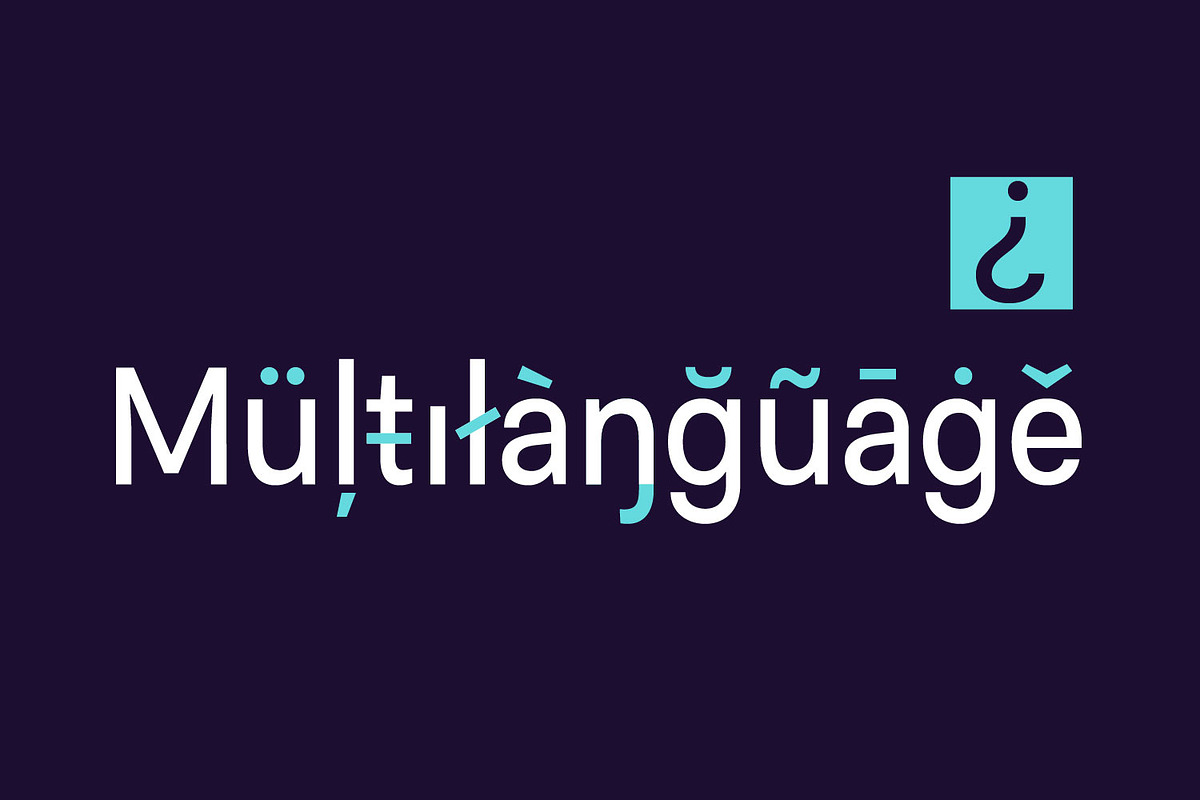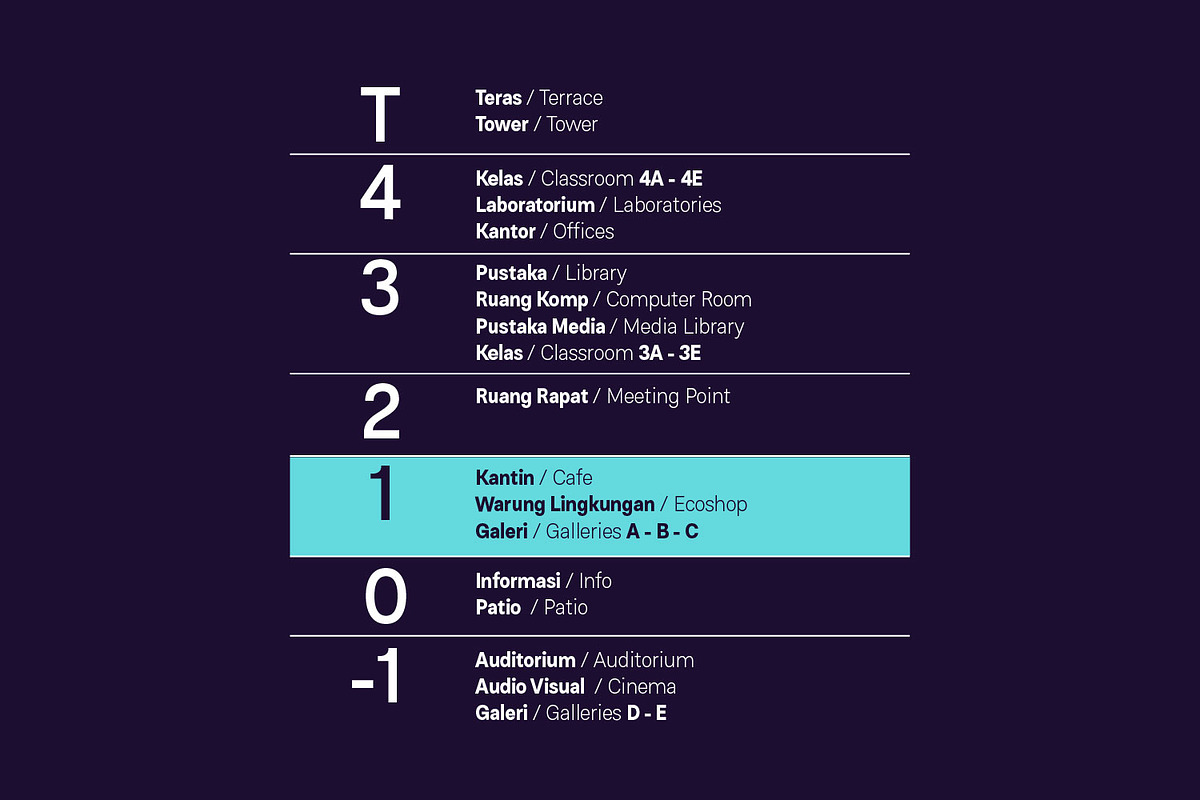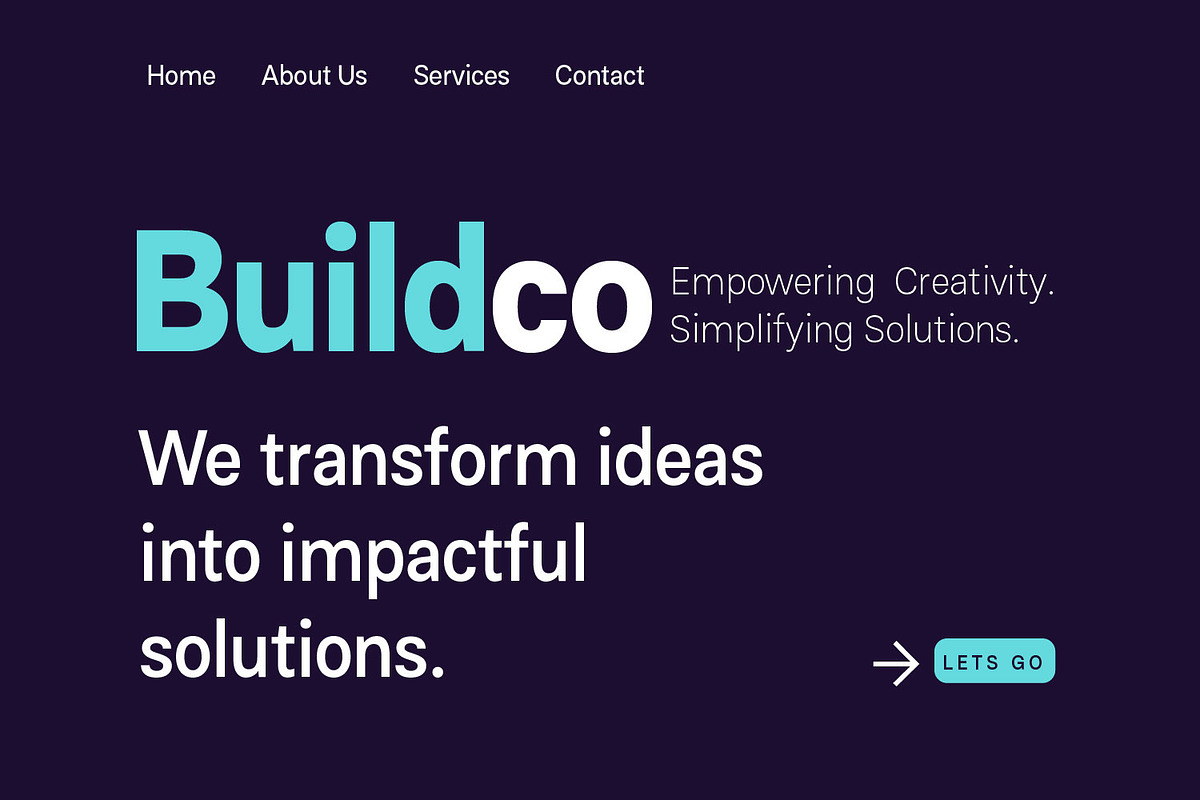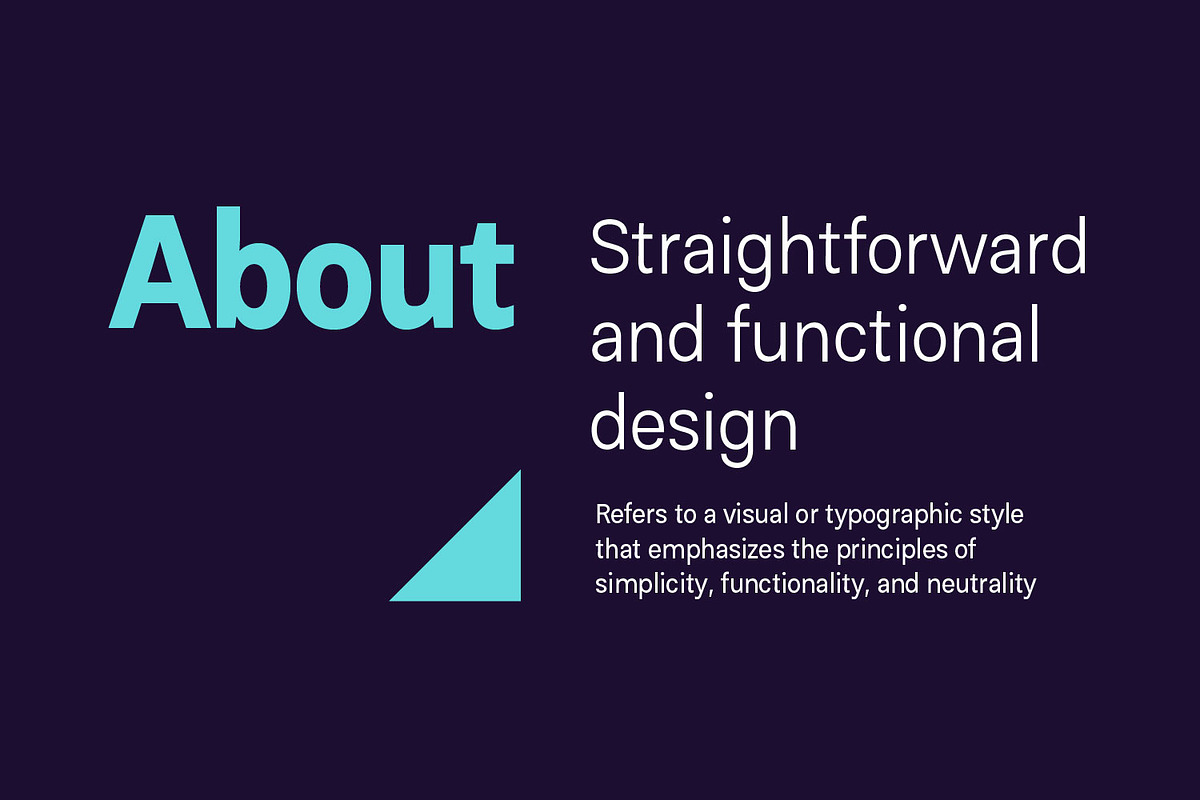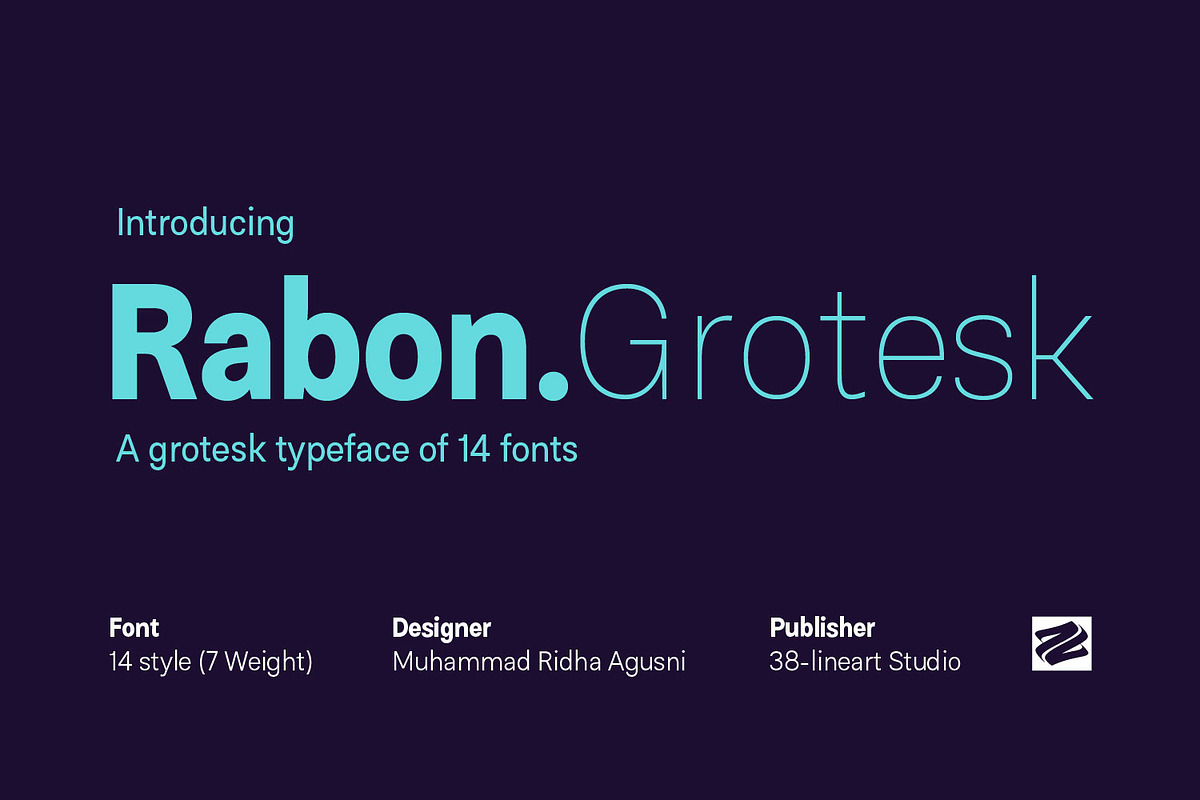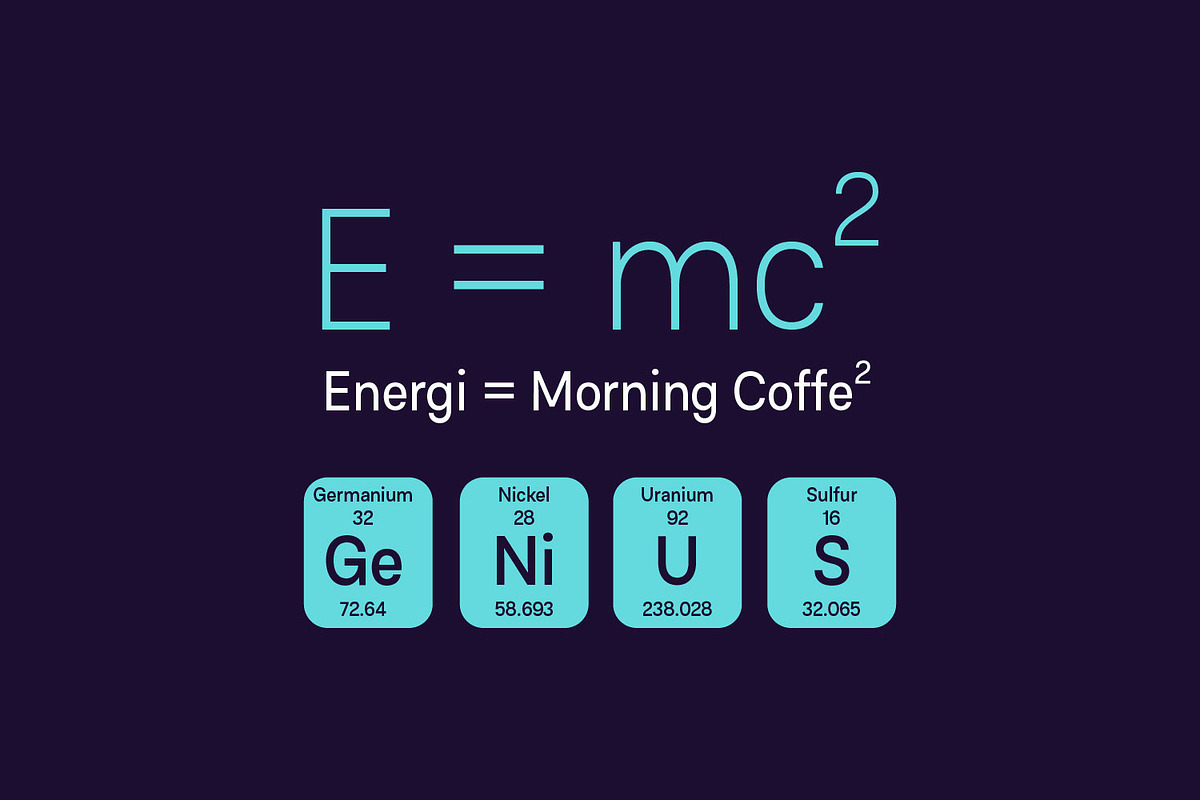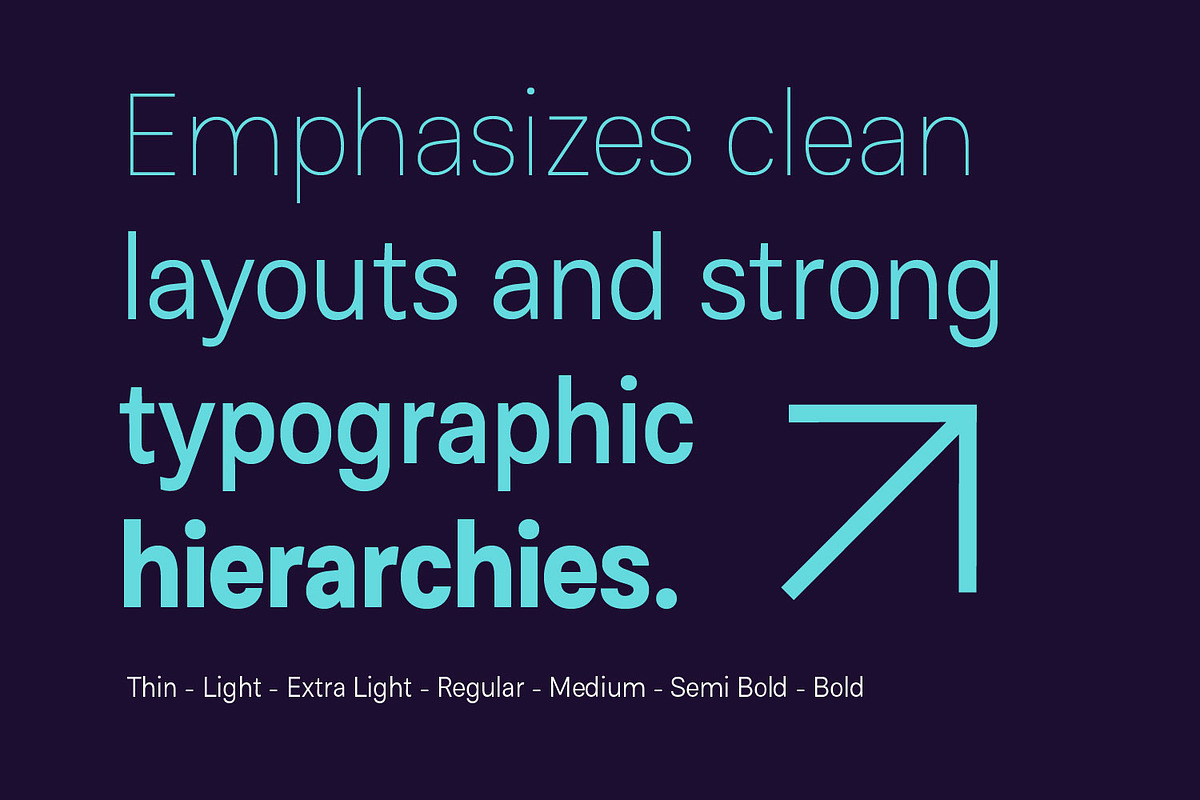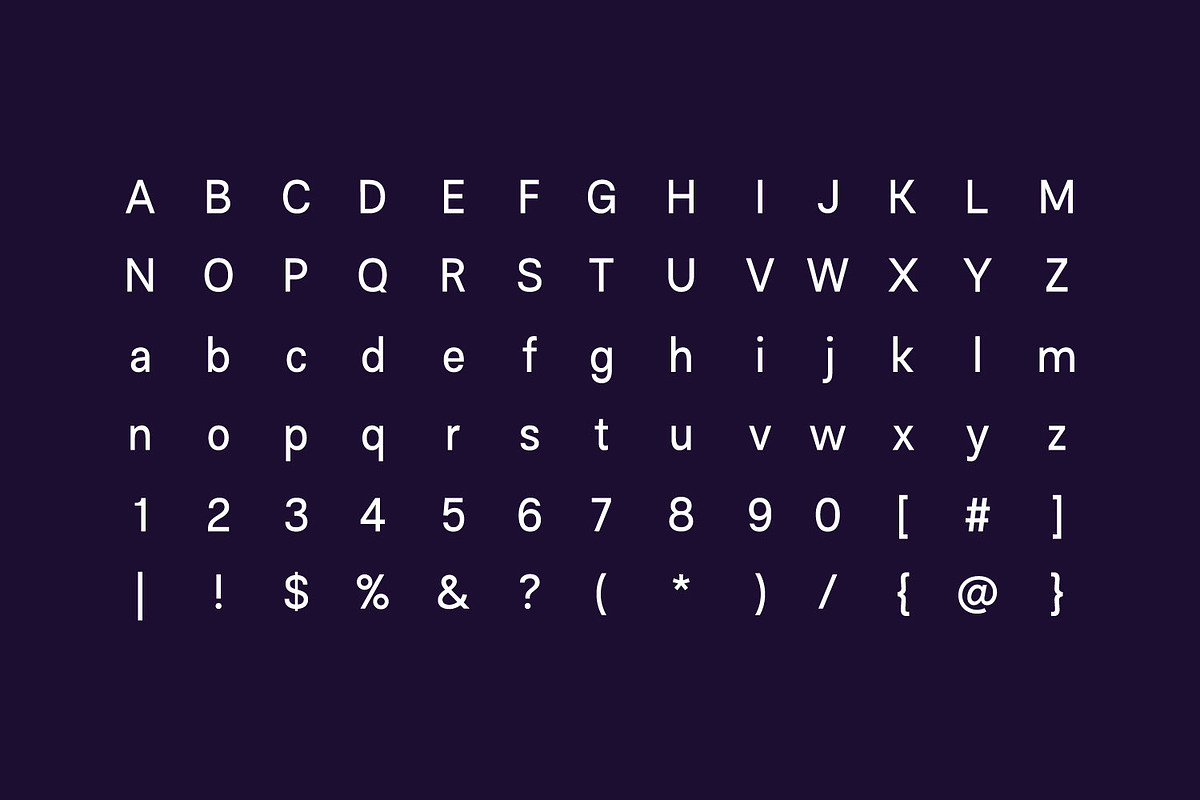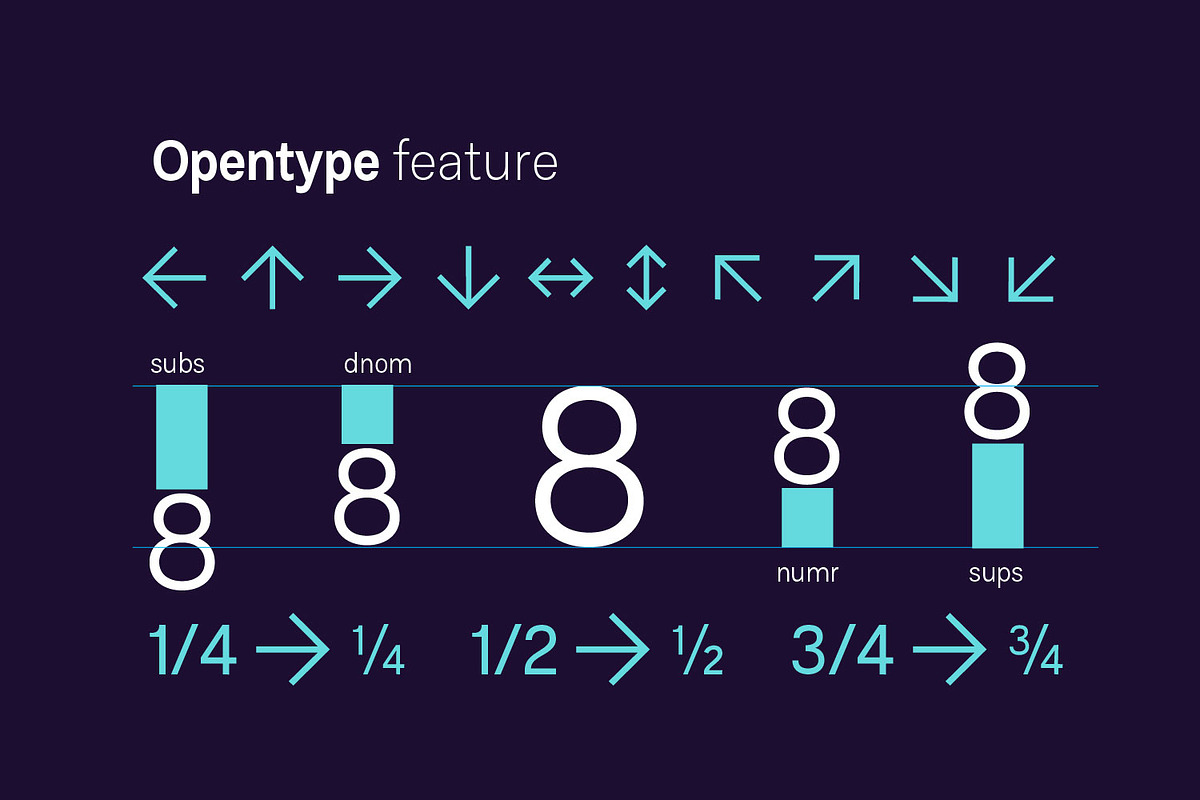
Rabon - Grotesk typefaace
Rabon Grotesk is a modern sans-serif typeface that embodies clarity and purpose. With its clean geometric structure softened by gentle curves, it strikes a perfect balance between precision and warmth. Offering seven versatile weights with italics, it adapts seamlessly to any design need, from bold headlines to refined body text. Designed to emphasize strong typographic hierarchies, Rabon Grotesk ensures your message stands out with confidence and clarity. Its thoughtful OpenType features like fractions, superscripts, and proportional numerals add practicality, while extensive multilingual support opens the door to global creativity. Simple yet powerful, Rabon Grotesk transforms functional design into timeless impact.